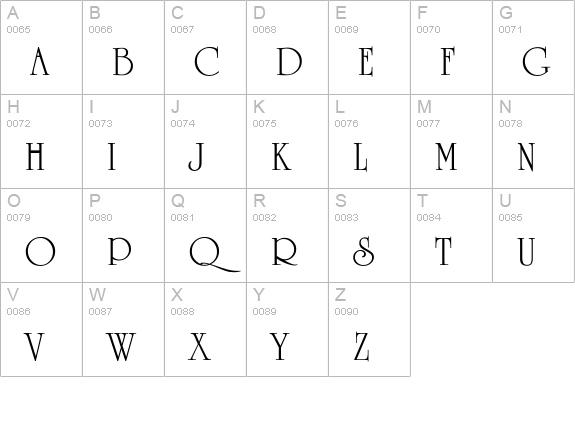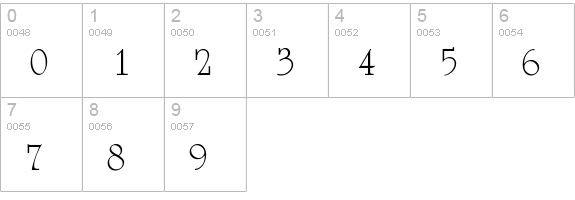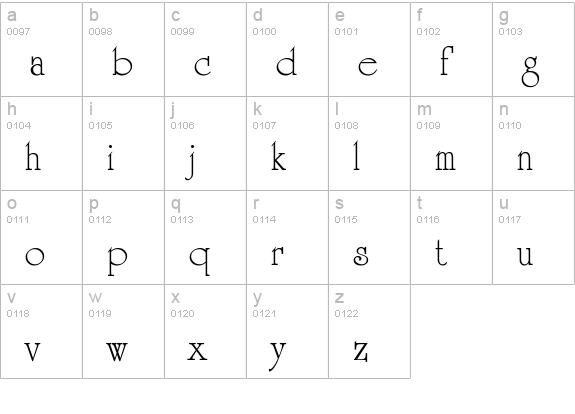
University Font Details
Introducing the captivating and versatile University font, a typeface that effortlessly combines elegance with a touch of modernity. This meticulously crafted font is perfect for all your design needs, whether for academic projects, professional presentations, or creative endeavors. University font's refined letterforms exude a timeless charm, making it an ideal choice for any setting. Its balanced proportions and clean lines lend a sense of sophistication to any text, while its subtle curves and gentle serifs add a touch of warmth and approachability. With its wide range of weights and styles, from regular to bold, italic to condensed, this font offers endless possibilities for customization and creative expression. But what sets University font apart is its availability for free download at FontsMarket.com. Yes, you heard it right! This stunning font can be yours without any cost, allowing you to enhance your designs without breaking the bank. FontsMarket.com is renowned for its extensive collection of high-quality fonts, and University font is no exception. Its freely accessible nature ensures that everyone can enjoy its beauty and harness its potential. Whether you are a student looking to elevate your academic papers, a designer seeking to make a lasting impression, or a business professional aiming to communicate with clarity and style, University font is the perfect choice. Its timeless elegance, combined with its accessibility, makes it a must-have addition to any font library. Download University font today from FontsMarket.com and unlock a world of design possibilities. Embrace the power of this versatile typeface and let it elevate your projects to new heights. With University font at your disposal, the sky's the limit for your creativity.